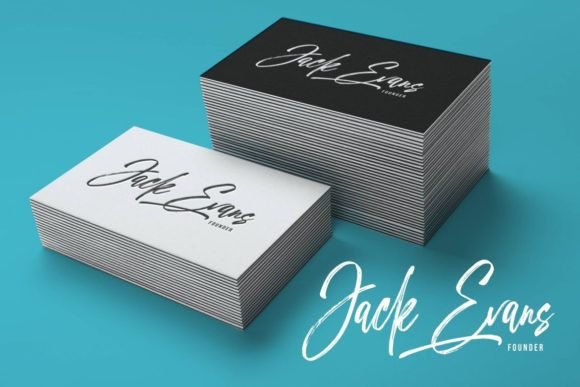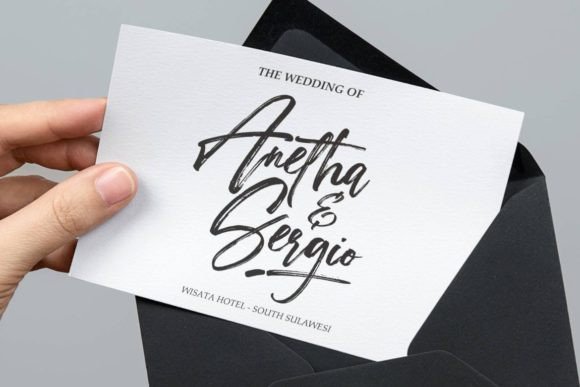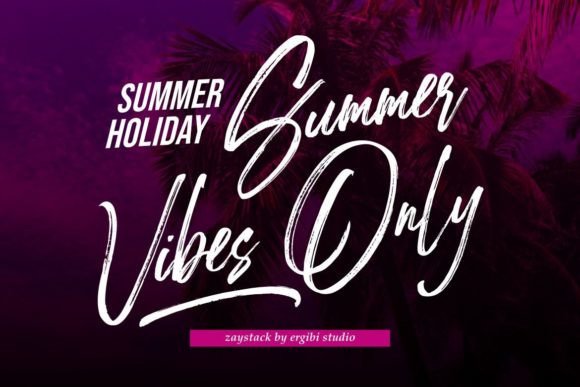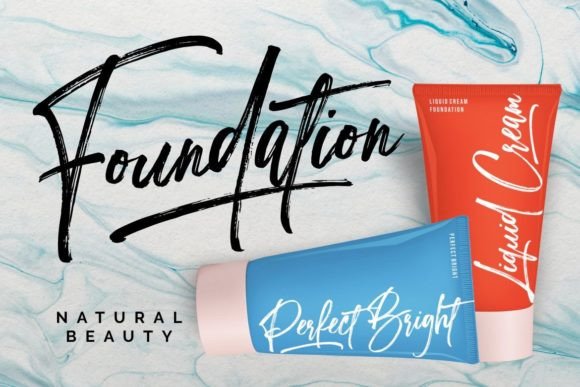
About Zaystack Font
Zaystack is a handwritten font with a brush effect that comes with a style that seems real. This font style is inspired by luxury goods and brands, which makes it perfect for logos & branding, photography, invitations, watermarks, advertisements, product designs, stationery, wedding designs, labels, product packaging, special events, or anything that requires handwritten content.